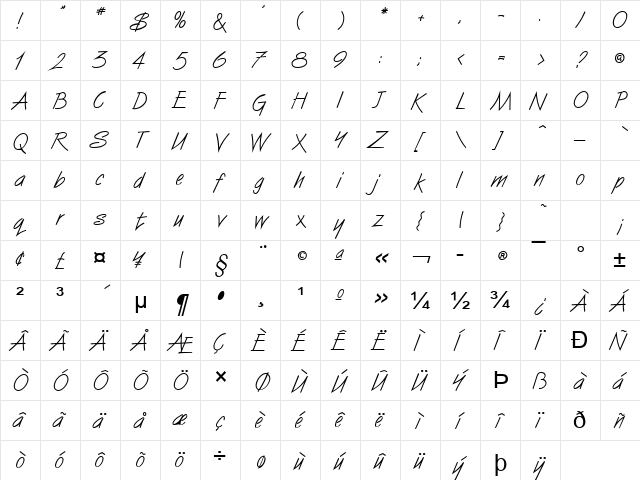
Surfer Normal
Design Context for Surfer Typeface
Surfer takes a measured approach to typography — its balanced proportions and neutral character make it a reliable workhorse for both digital and print work.
Pro Tip: Use Surfer in both headline and body roles to test its range before committing to a single application.